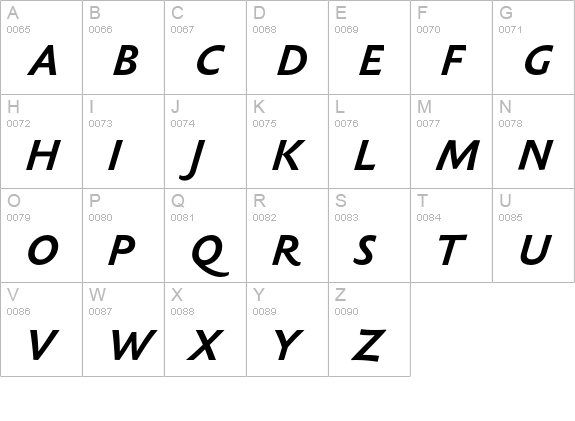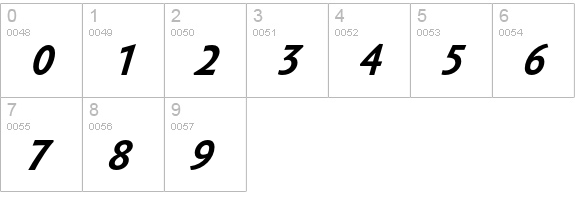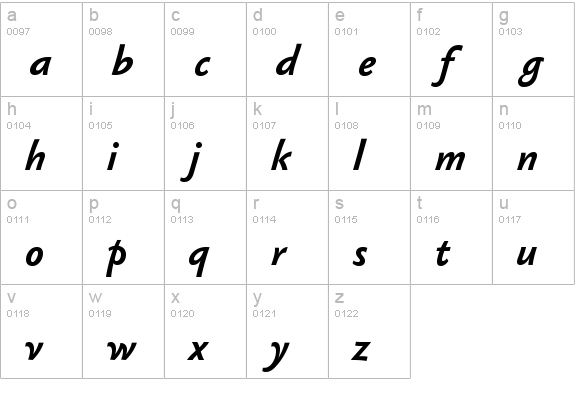
Sebastian Text Pro Bold Italic Font Details
Sebastian Text Pro Bold Italic is a strong, high-contrast, italic variant in the Sebastian typeface family \xE2\x80\x94 well suited to headlines, attention-grabbing titles, and strong calls-to-action.
Introducing Sebastian Text Pro Bold Italic font, a visually stunning typeface that exudes elegance and sophistication. With its bold and italic design, this font effortlessly captures attention and adds a touch of flair to any design project. Sebastian Text Pro Bold Italic font is perfect for those seeking to make a statement with their typography. Whether you're designing a logo, creating a magazine layout, or crafting an eye-catching headline, this font will elevate your work to new heights. The distinctive curves and stylish letterforms of Sebastian Text Pro Bold Italic font make it a versatile choice for both print and digital media. Its clean and legible appearance ensures readability, even at smaller sizes, making it ideal for body text as well. But what sets Sebastian Text Pro Bold Italic font apart is the fact that it is freely available to download at FontsMarket.com. Yes, you read that right - this high-quality font can be yours without spending a dime. We believe that great design should be accessible to all, and that's why we are proud to offer this font at no cost. So, whether you're a professional designer looking to add a touch of sophistication to your work or a hobbyist seeking to enhance your creative projects, Sebastian Text Pro Bold Italic font is the perfect choice. With its free availability and exceptional design, it's a font that's hard to resist. Don't miss out - download Sebastian Text Pro Bold Italic font today and let your creativity soar.